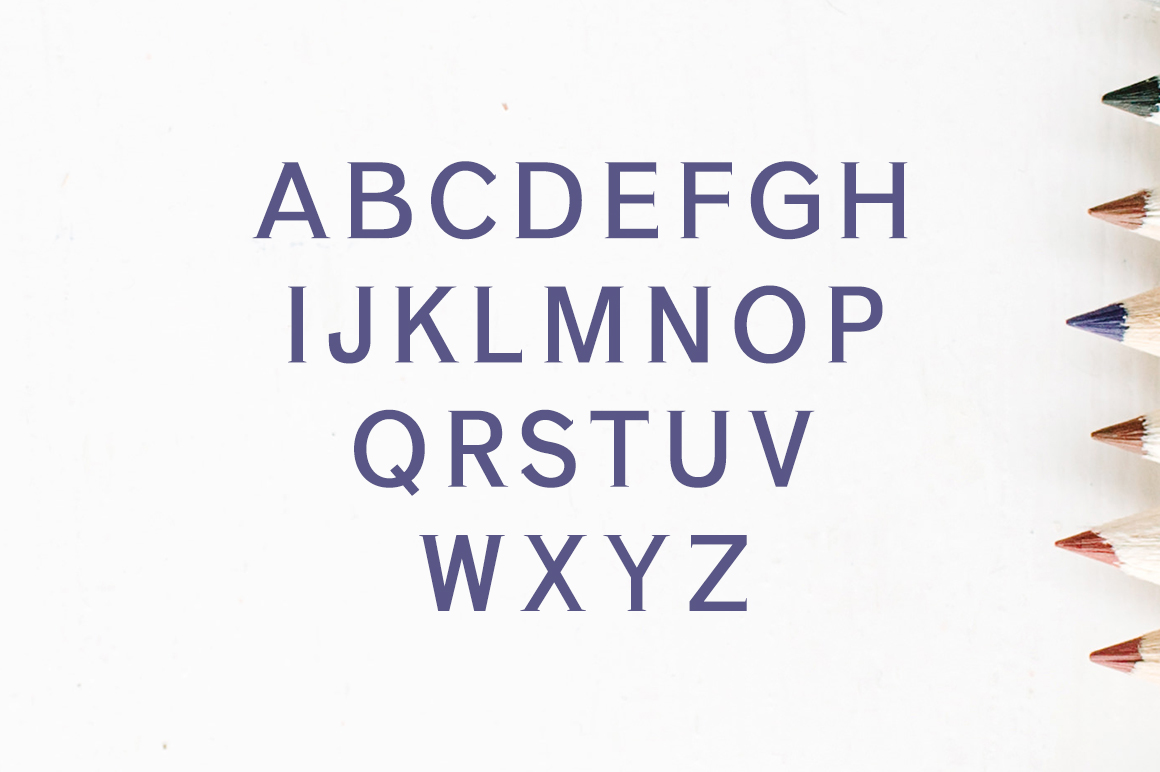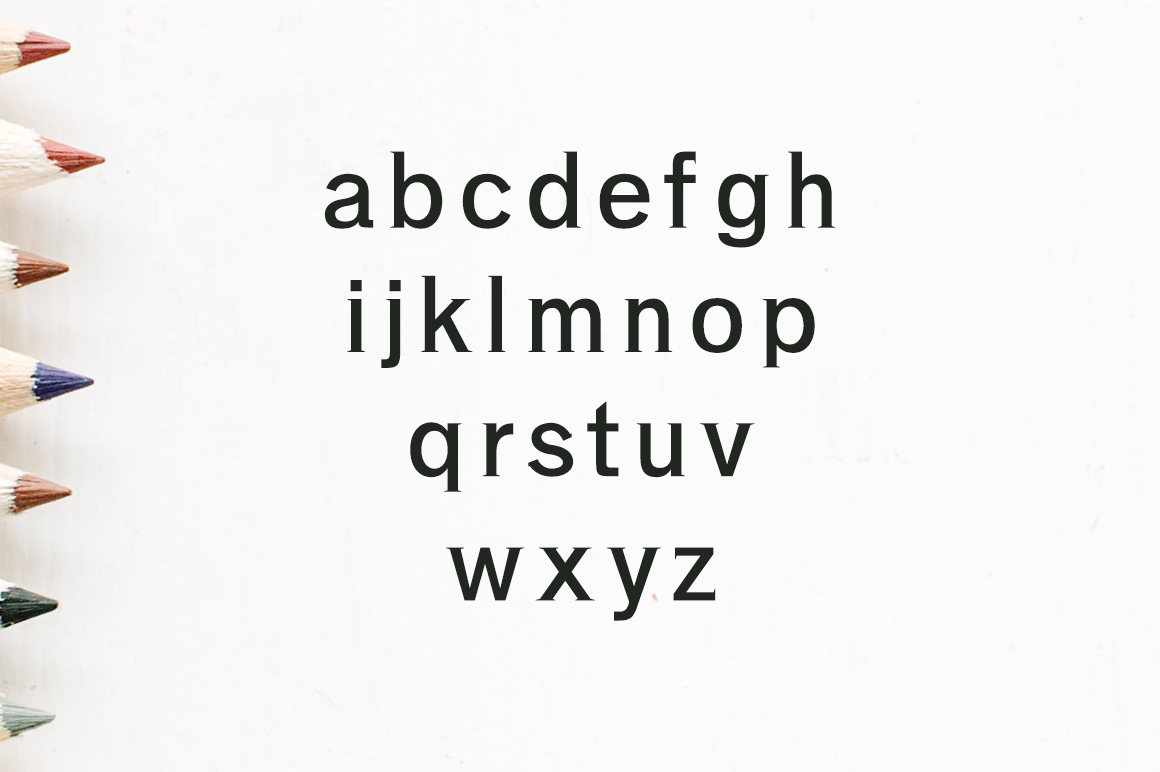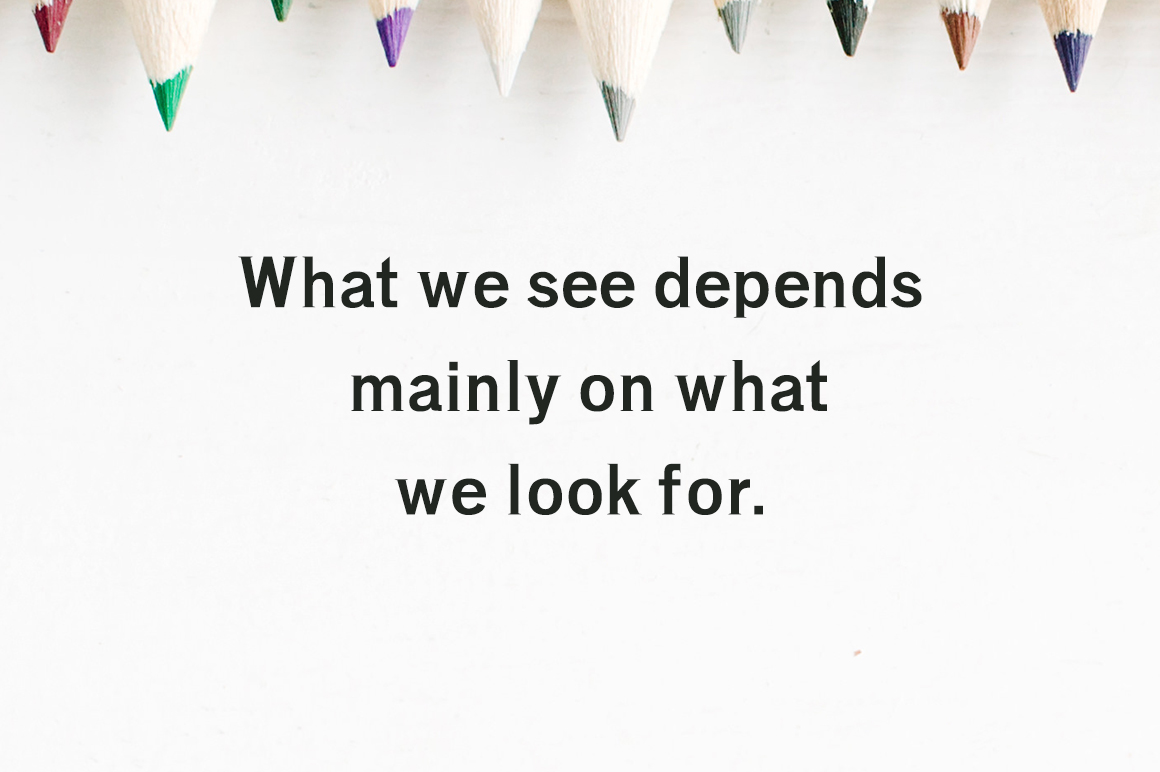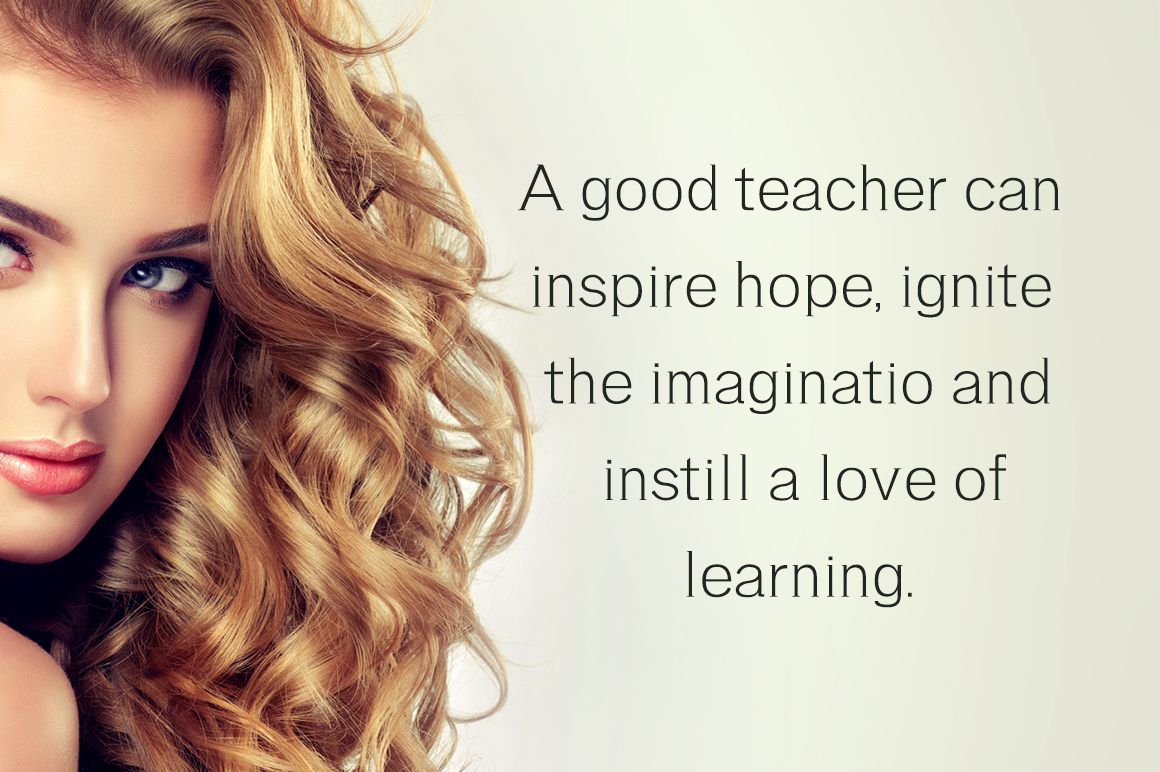
Introducing Cleantha Font: A Modern Serif Typeface for Designers and Crafters
Are you tired of using the same old fonts in your designs? Look no further than Cleantha, a minimal clean serif font family that’s sure to elevate your typography game. With its unique and modern serif look and feel, Cleantha is the perfect addition to any designer’s toolkit. In this article, we’ll dive into the features and benefits of Cleantha, and explore why it’s a must-have for designers and crafters alike.
What is Cleantha Font?
Cleantha is a serif typeface that boasts a clean and minimalist aesthetic. With 5 weights to choose from, this font family is versatile and can be used for a wide range of design projects. Whether you’re creating a logo, brochure, or website, Cleantha’s got you covered. Its well-weighted and appealing design makes it a joy to use, and you’ll find yourself reaching for it time and time again.
Key Features of Cleantha Font
- Minimal Clean Design: Cleantha’s design is characterized by its simplicity and elegance. The clean lines and minimalist aesthetic make it perfect for designers who want to create modern and sophisticated designs.
- 5 Weights: With 5 weights to choose from, Cleantha is a versatile font family that can be used for a wide range of design projects. From bold headlines to body text, Cleantha’s got you covered.
- Unique and Modern Serif Look: Cleantha’s serif design is both unique and modern, making it perfect for designers who want to create designs that stand out from the crowd.
- Well-Weighted and Appealing: Cleantha’s design is well-weighted and appealing, making it a joy to use. The font’s balance and proportion make it perfect for creating designs that are both aesthetically pleasing and easy to read.
Why Should Designers and Crafters Use Cleantha Font?
So, why should designers and crafters use Cleantha font? Here are just a few reasons:
- Elevate Your Typography: Cleantha is a game-changer for designers who want to elevate their typography. With its unique and modern serif design, Cleantha adds a touch of sophistication to any design project.
- Versatility: With 5 weights to choose from, Cleantha is a versatile font family that can be used for a wide range of design projects. From logos and brochures to websites and magazines, Cleantha’s got you covered.
- Easy to Read: Cleantha’s design is not only aesthetically pleasing, but it’s also easy to read. The font’s balance and proportion make it perfect for creating designs that are both visually appealing and easy to read.
How to Use Cleantha Font in Your Designs
Using Cleantha font in your designs is easy. Here are a few tips to get you started:
- Pair it with Other Fonts: Cleantha pairs well with other fonts, making it perfect for creating designs that require multiple font styles.
- Experiment with Different Weights: With 5 weights to choose from, experiment with different weights to find the one that works best for your design.
- Use it for Headlines and Body Text: Cleantha is perfect for both headlines and body text. Use the bold weights for headlines and the lighter weights for body text.
In conclusion, Cleantha font is a must-have for designers and crafters who want to elevate their typography game. With its unique and modern serif design, versatility, and ease of use, Cleantha is the perfect addition to any designer’s toolkit. Whether you’re creating a logo, brochure, or website, Cleantha’s got you covered. So why wait? Add Cleantha to your serif collection today and take your designs to the next level.
Cleantha Serif Typeface is a minimal clean serif font family, which contains 5 weights and It features unique and modern serif look and feel. Well weighted and appealing, you’ll find yourself using Cleantha time and time again. Add Cleantha to your serif collection today.